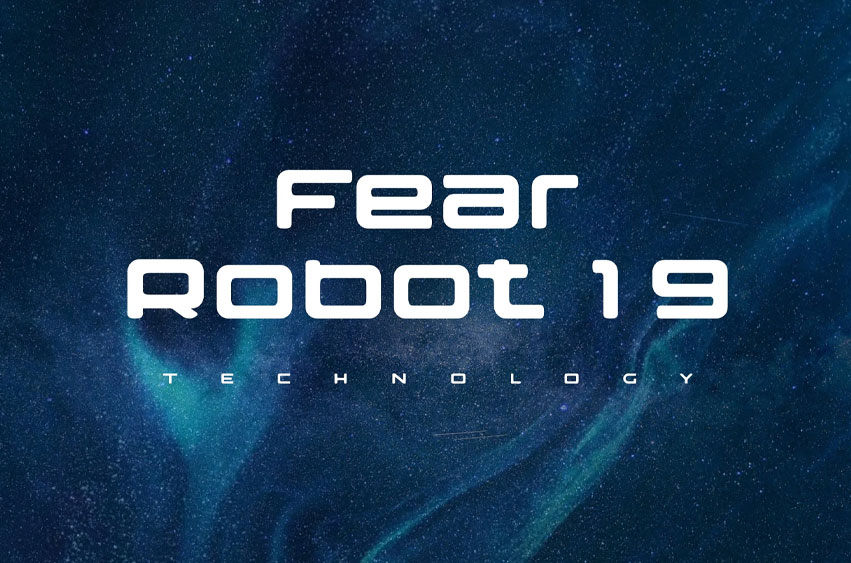
Fear Robot 19 Font
Fear Robot 19 Font In a bustling city where creativity sparked at every corner, a visionary brand sought a digital presence that whispered elegance yet shouted innovation.
They dreamed of a font—clean, modern, and digital, with just a hint of softness, like a gentle curve smoothing the edges of a crisp morning. This font, infused with the spirit of the number ’19,’ carried a subtle roundness